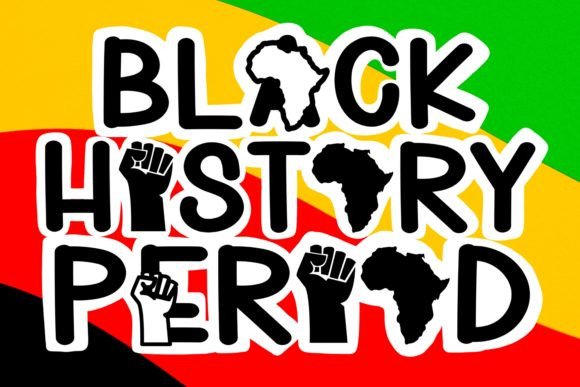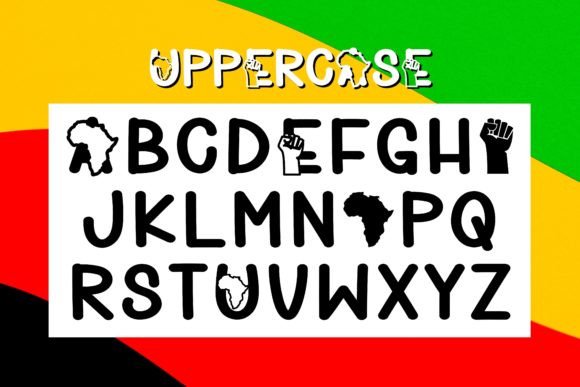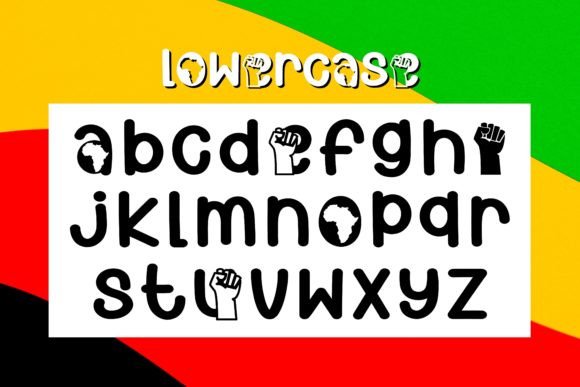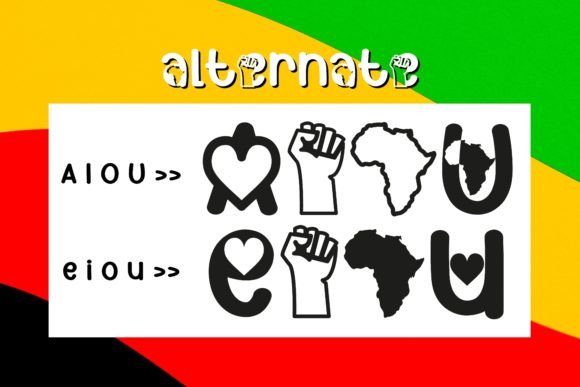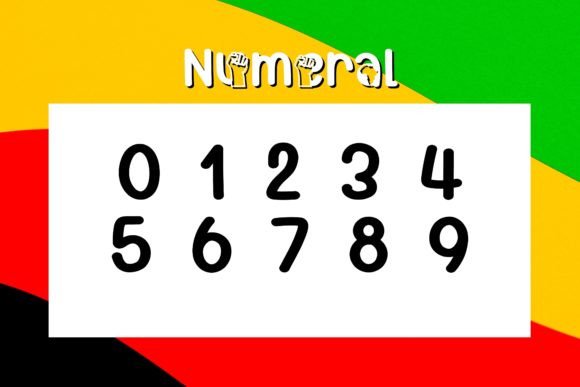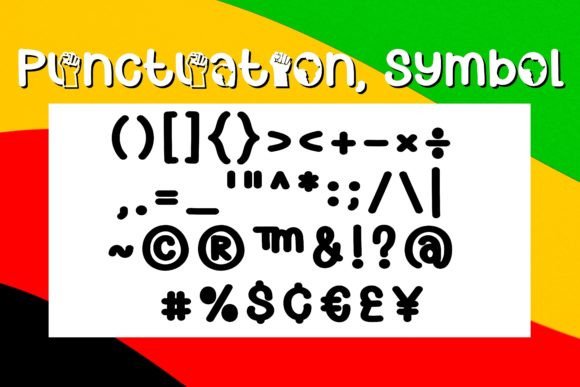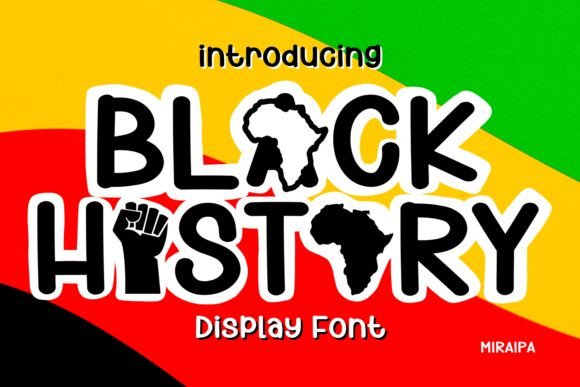
Introducing Black History Font: A Stylish and Meaningful Addition to Your Creative Projects
As we approach Black History Month, designers and crafters are on the lookout for unique and impactful ways to pay tribute to this significant celebration. If you’re looking for a font that not only honors the occasion but also adds a touch of style and flair to your projects, look no further than the Black History Font. This friendly and cool display font is specially designed for Black History Month, and it’s sure to become a favorite in your creative arsenal.
What is Black History Font?
Black History Font is a thoughtfully crafted display font that’s perfect for a variety of creative projects, from posters and flyers to social media graphics and more. Its unique design elements and bold, eye-catching style make it an excellent choice for anyone looking to add a touch of sophistication and elegance to their work.
Key Features of Black History Font
- Unique Design: Black History Font boasts a distinctive design that’s both stylish and meaningful. Its bold lines and elegant curves make it perfect for headlines, titles, and other display text.
- Versatile: Black History Font is perfect for a wide range of creative projects, from print materials like posters and flyers to digital graphics like social media posts and blog headers.
- High-Quality: This font is designed with high-quality in mind, ensuring that it looks great even at large sizes.
Why Choose Black History Font?
So why should you choose Black History Font for your creative projects? Here are just a few compelling reasons:
- Show Your Support: By using Black History Font, you’re showing your support for Black History Month and the importance of celebrating African American culture and achievements.
- Stand Out: This font is sure to help your projects stand out from the crowd, with its unique design and bold style.
- Easy to Pair: Black History Font pairs well with a variety of other fonts, making it easy to create visually appealing combinations.
Tips and Tricks for Using Black History Font
Here are a few tips and tricks to help you get the most out of Black History Font:
- Experiment with Sizes: Don’t be afraid to experiment with different font sizes to find the one that works best for your project.
- Pair with Other Fonts: Try pairing Black History Font with other fonts to create visually appealing combinations.
- Use in Combination with Images: Use Black History Font in combination with images to create stunning graphics.
Black History Font is a stylish and meaningful addition to any creative project. Its unique design, ease of use, and versatility make it perfect for designers and crafters looking to pay tribute to Black History Month. With its bold style and elegant curves, this font is sure to become a favorite in your creative arsenal. So why wait? Download Black History Font today and start creating projects that celebrate African American culture and achievements!